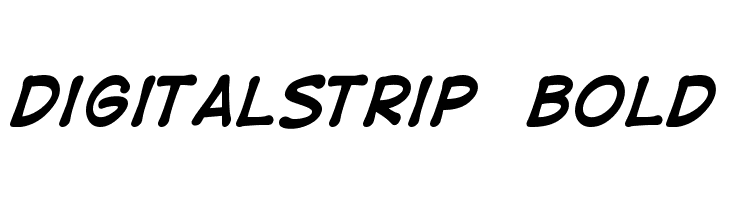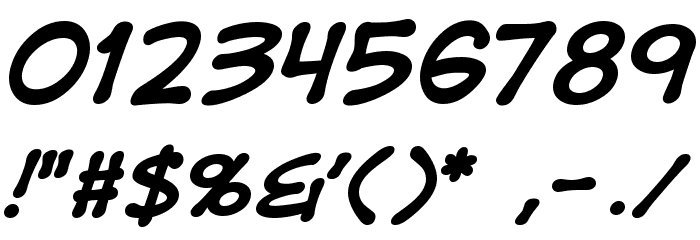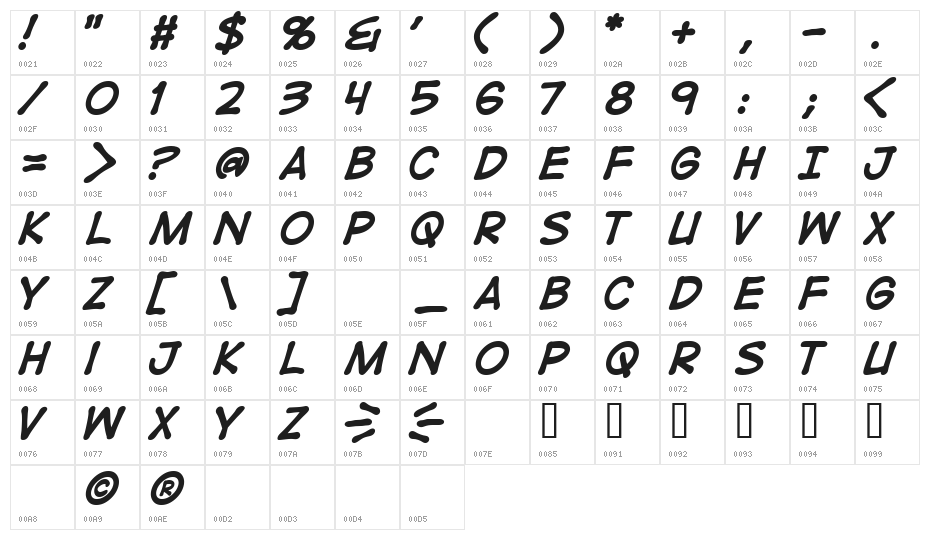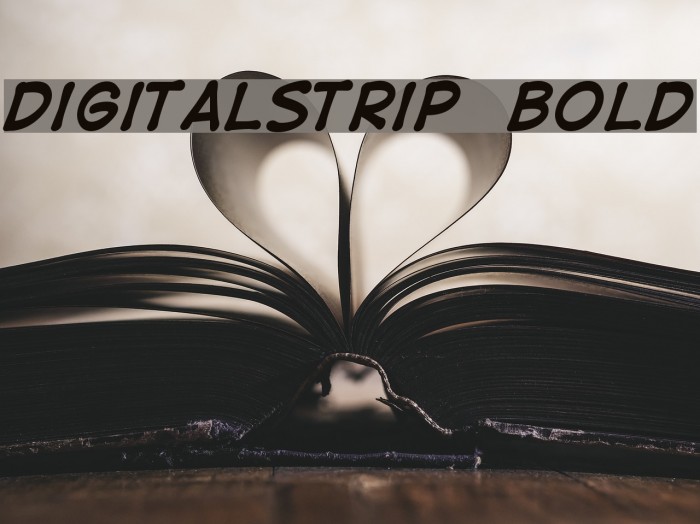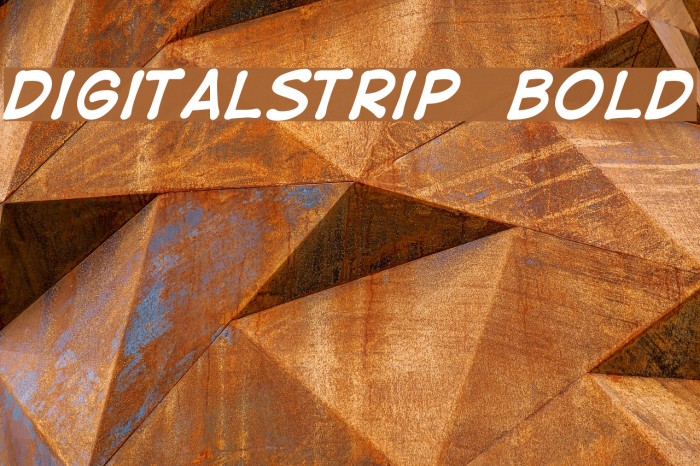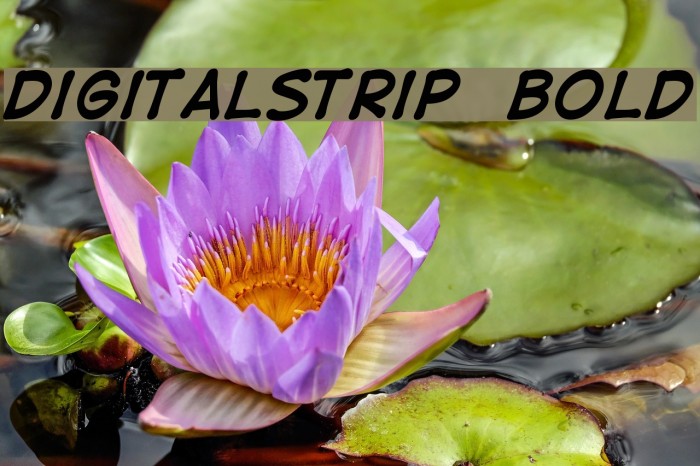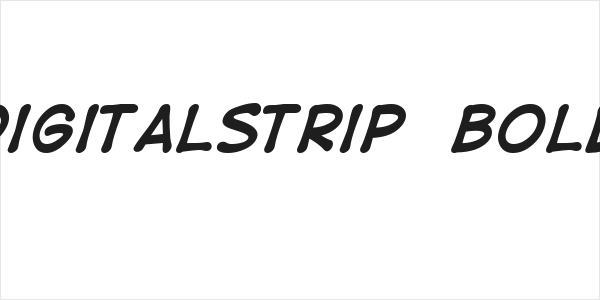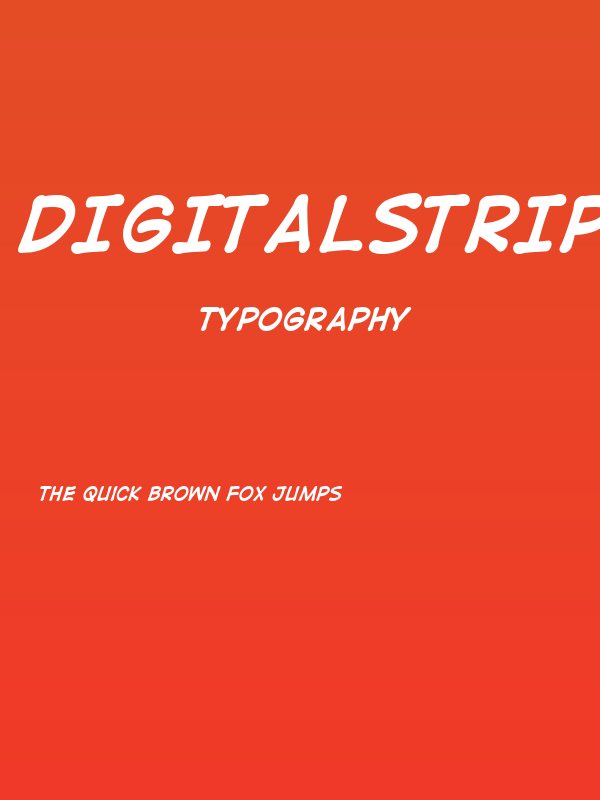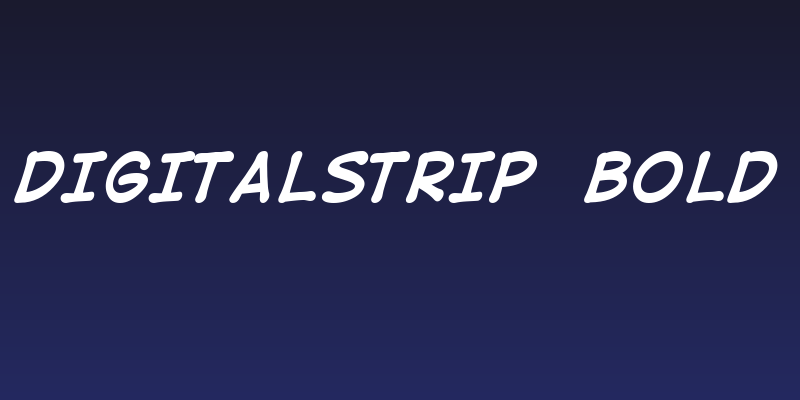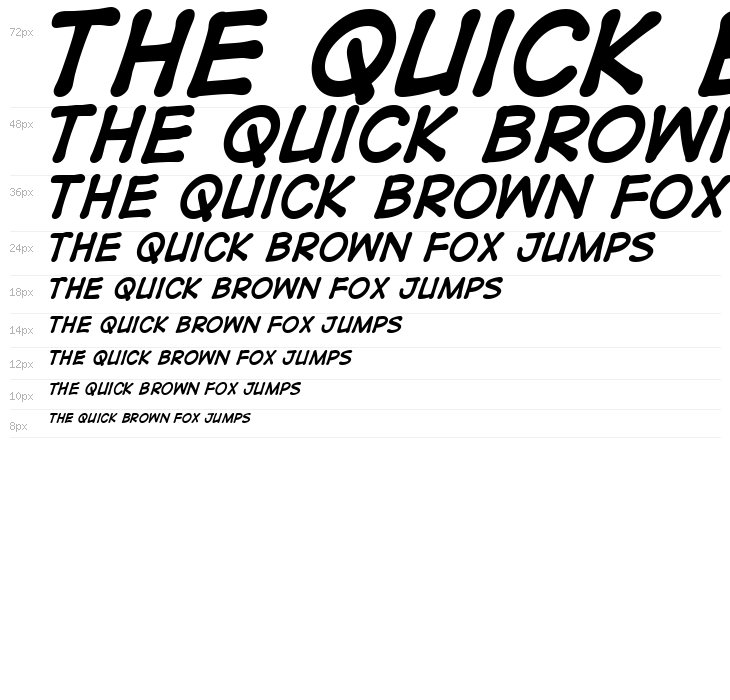
DigitalStrip Bold Font
DigitalStrip Bold Description
This font features a bold, handwritten style with a playful and dynamic appearance. The letters are slightly slanted, giving a sense of movement and energy. The strokes are thick and consistent, providing a strong visual impact. The characters are well-rounded with smooth curves, making them easy to read while maintaining a casual and informal tone. The numbers and special characters follow the same style, ensuring uniformity across all glyphs.
Overall StylePlayful
Use CaseHeadlines, Logos, Informal Text
Proposed ProjectsIdeal for comic books, children's books, playful branding, and casual invitations.